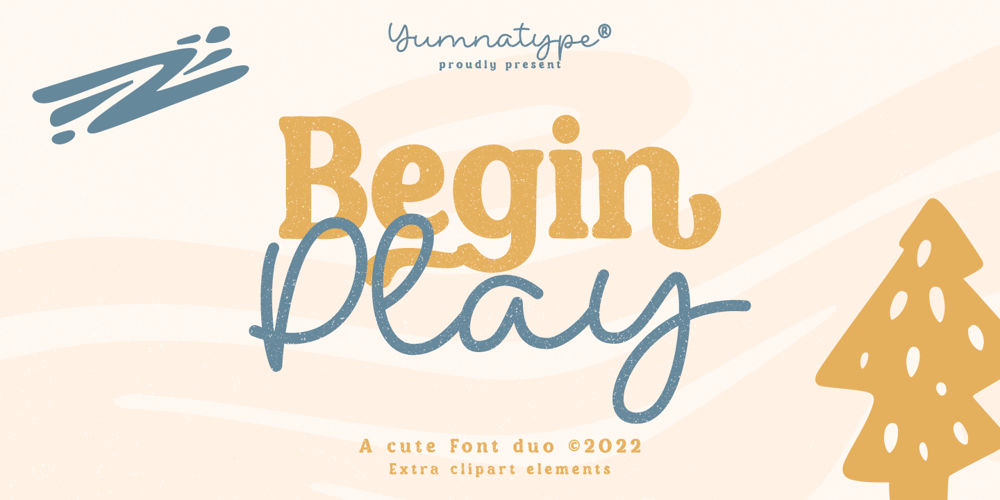
Begin Play Font Family was designed by Donis Miftahudin and published by Yumna Type. Begin Play contains 3 styles and family package options. The better your font, the better the result of your design will be. That’s a fact. Begin play is a font duo made from combination between script and serif font style you can mix, match, and call your own. The script style has a cute touch that is well pair with the elegant serif font. This font duo maintain the readability even at small sizes. In this package, you can also get illustrations as special extra. Features: Stylistic Sets Ligatures Multilingual Supports Numerals and Punctuations It is suitable for branding, logos, social media quotes, stickers, posters, vintage designs, wall art, merchandise, social media, and many more. Get more inspiration by seeing the preview. Thank you for purchasing our premium fonts! Happy Designing!